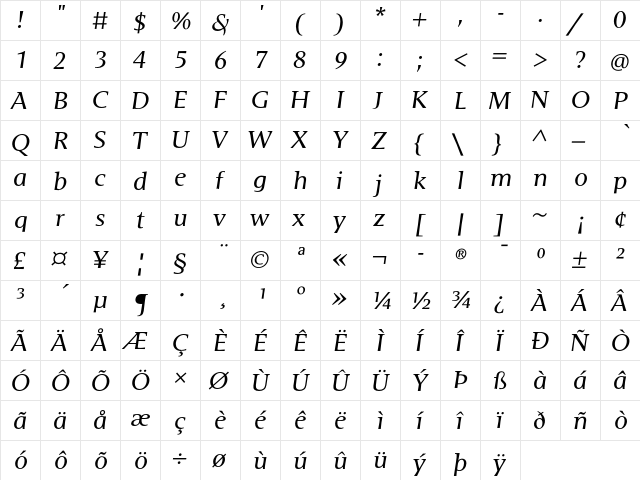
Areplos Book Pro Italic
| Foundry | Jan Solpera |
| Designer | Jan Solpera |
Design Context for Areplos Book Pro Typeface
Areplos Book Pro offers clean, dependable letterforms without strong stylistic allegiance, making it a practical choice for designers who need flexibility. Its italic angle brings a sense of urgency and motion to the letterforms.
Pro Tip: Try Areplos Book Pro for annotation and caption copy alongside an upright companion — the contrast in angle creates a dynamic but ordered typographic system.